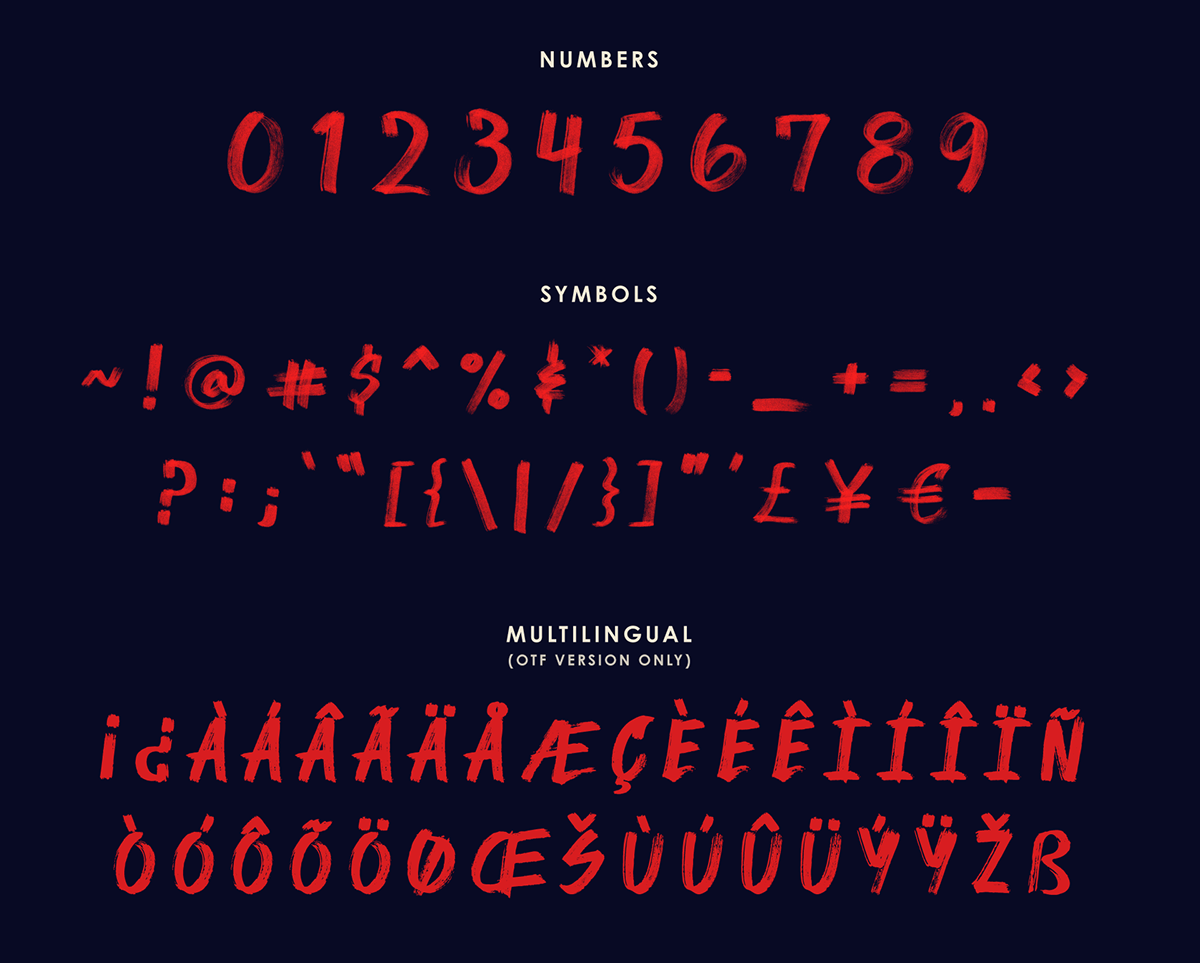
Sinistral
Sinistral is a high-energy handwritten font, inspired by 80's horror films with a touch of modern grit.
"Sinistral" is a literal translation of left-handed (which I am) and just happened to fit the concept perfectly.